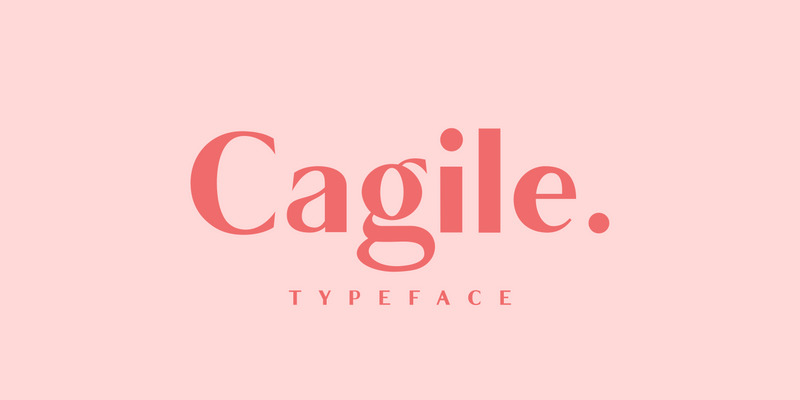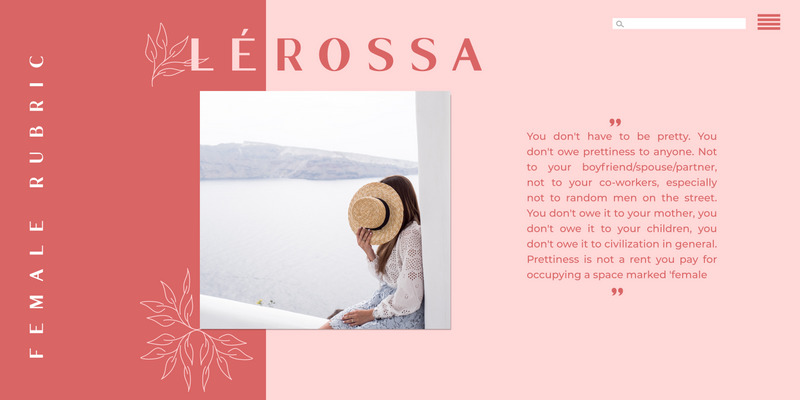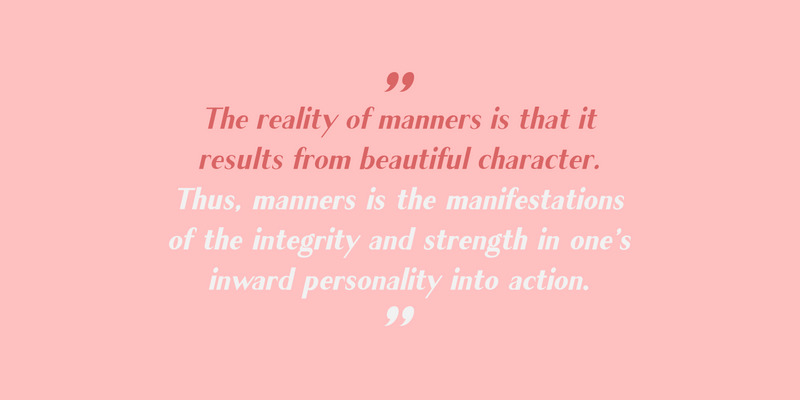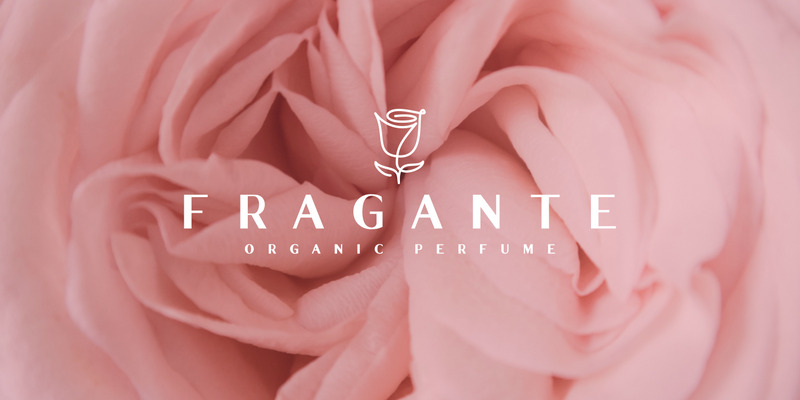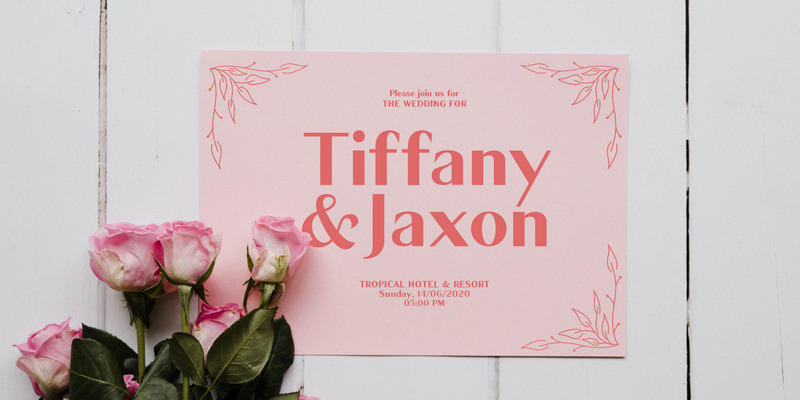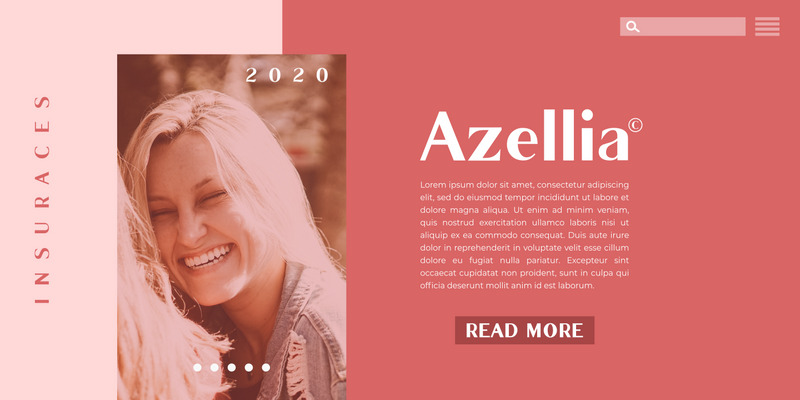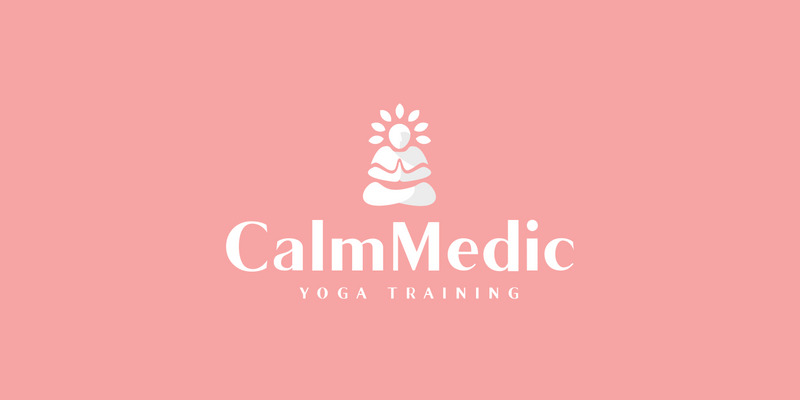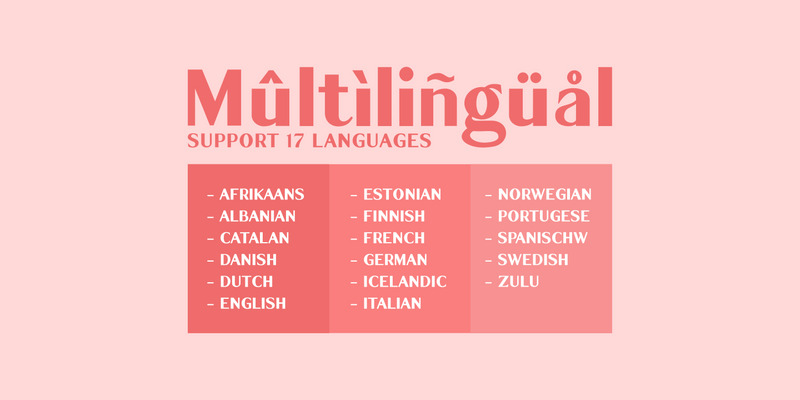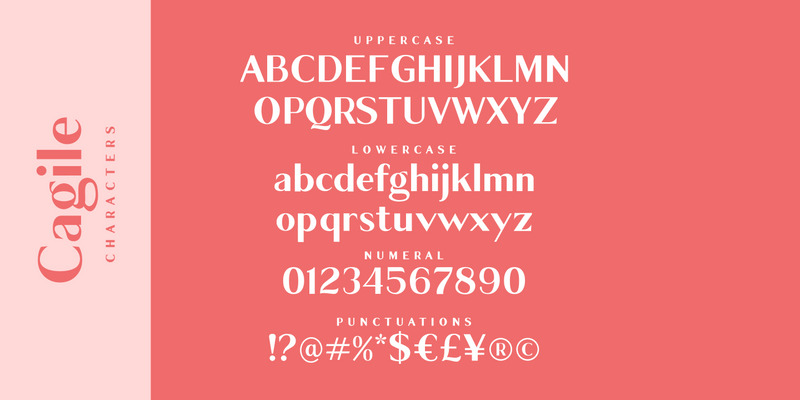
Cagile / 4 Styles Sans Font
Introducing Cagile font is a family font that comes with 4 styles like regular, italic, semi-bold, and semi-bold font. Cagile font presenting a minimalist but classy look, all characters are can represent what a project purpose that you want. The font's also nice and standout working for wedding invitations, logo, pull quotes & monograms, headlines, title, and more.
• Uppercase and lowercase characters
• Multilingual